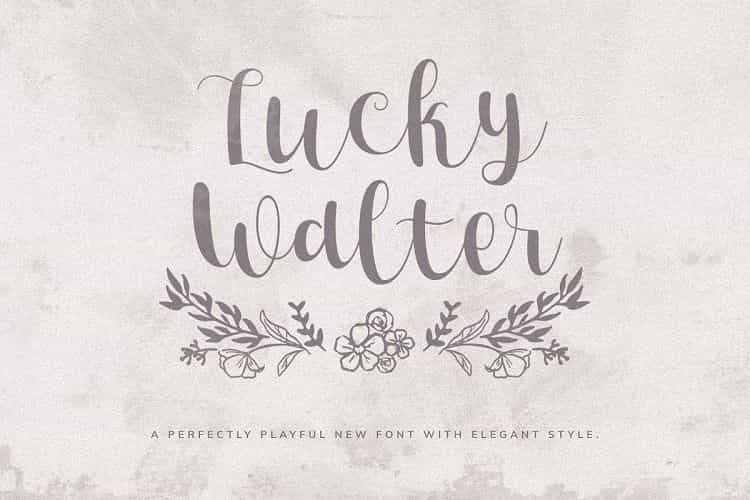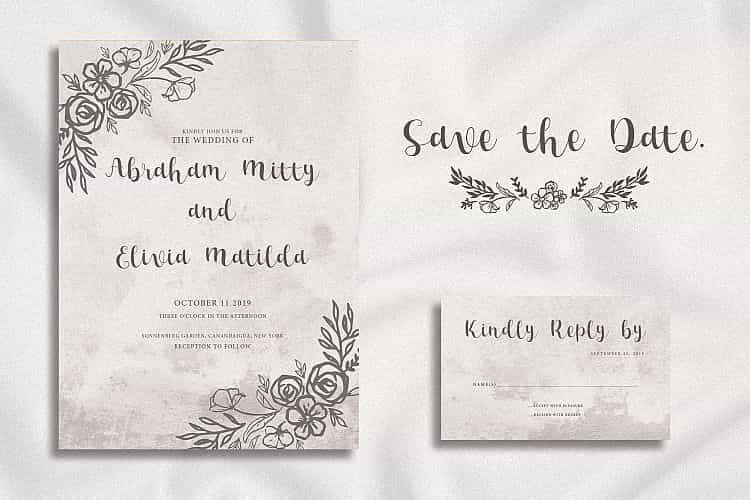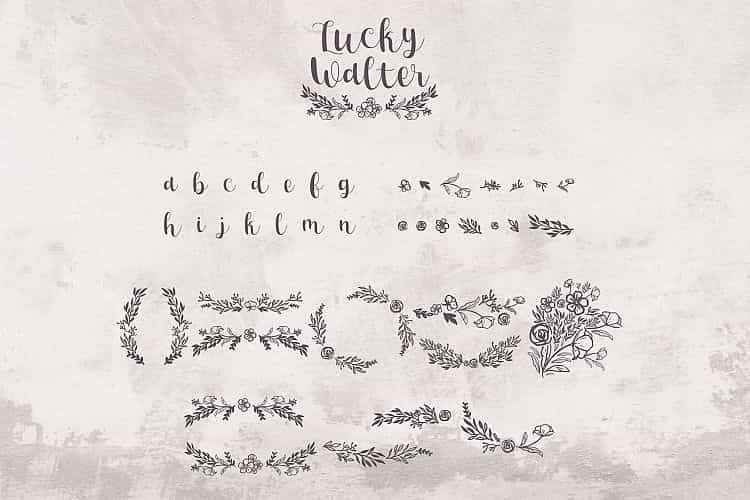
Lucky Walter Font is a life like handwritten font. Each and every element of it was made with Procreate on the iPad, it means that it is hand-written. The font of the site is normal and contemporary and is ideal for any awesome project.